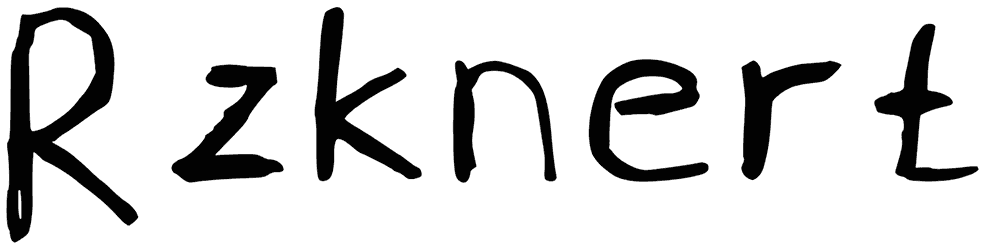
Rzknert Font
Would you like to have an artistic design with a casual and realistic vibe? As a trash font, Rzknert, with its hand lettering form, can provide this style for your creative design. Even if this emo font doesn’t consist of numbers and punctuation marks, it would be a unique illustration for lots of projects such as posters, games, apparel, tattoos, covers, and so forth.